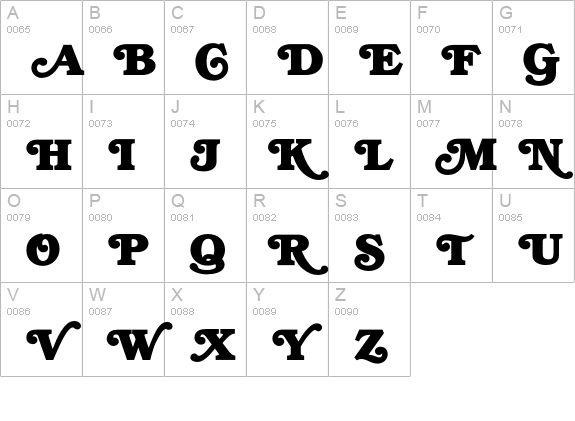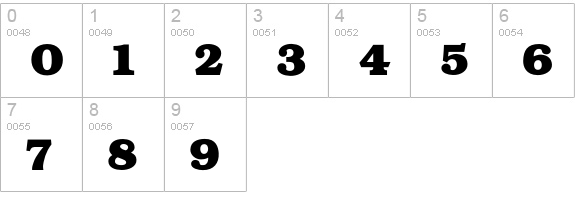
BookmanBoldSwash Font Details
BookmanBoldSwash font is a stunning and elegant typeface that exudes sophistication and charm. With its bold swash details and classic design, this font is perfect for adding a touch of style to any project. The intricate swirls and flourishes of BookmanBoldSwash make it ideal for creating eye-catching headings, invitations, and branding materials. The best part about BookmanBoldSwash font is that it is completely free to download at FontsMarket.com. This means you can easily enhance your designs with this beautiful font without having to spend a dime. Whether you're working on a personal project or a professional design, BookmanBoldSwash is sure to elevate your work and leave a lasting impression. Download it today and see the difference it can make in your designs!